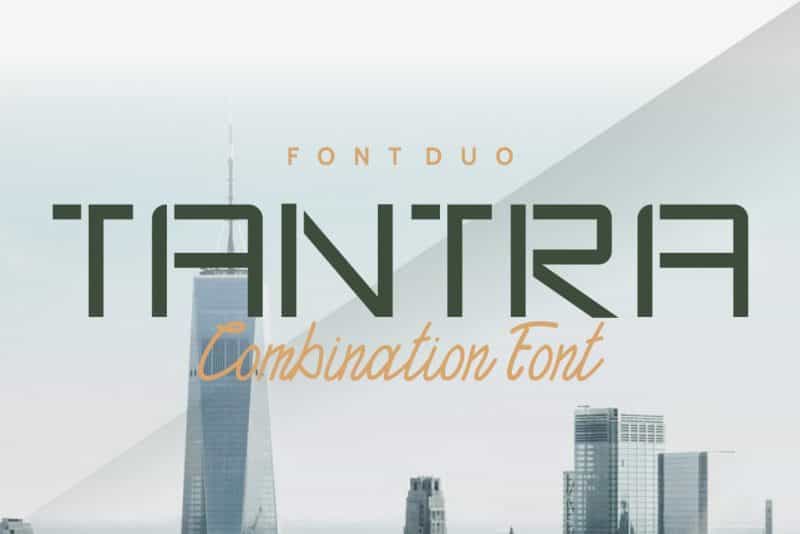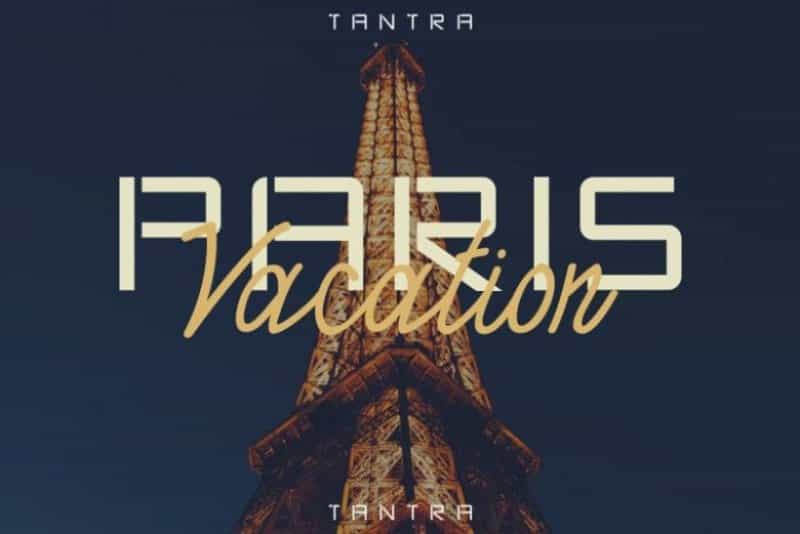
TANTRA is a sophisticated styling font which will be perfect for branding, logo, photography, signature, stationery, business card, signage, flyer, brochure, invitation, etc. There are many industries that is suitable for this font : Wedding, construction, real estate, services, law firm, marketing, artist, and hairstylist are the fields in which you can see this font. It is so graceful, luxurious, powerful, and nice.